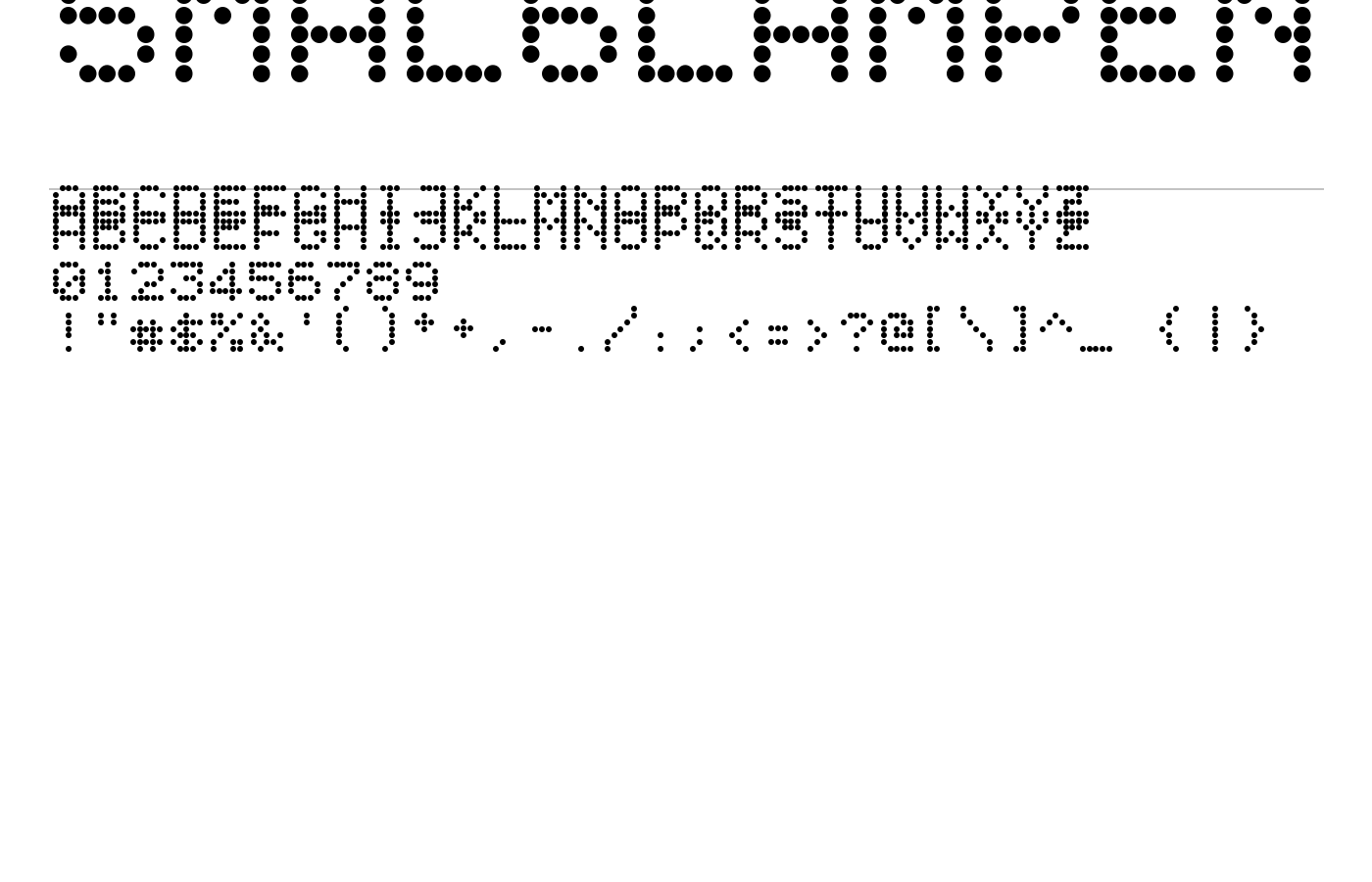
5mal6Lampen is a unique sans serif display font characterized by its digital dot matrix style, composed of evenly spaced circular dots forming each letter and symbol. Its uniform weight, normal width, and geometric stroke give it a modern, tech-inspired look, ideal for conveying a sense of innovation and digital culture. This font works best for futuristic branding, tech-oriented logos, digital interfaces, and creative posters where a high-tech or retro digital vibe is desired.
| Designer | Peter Wiegel |